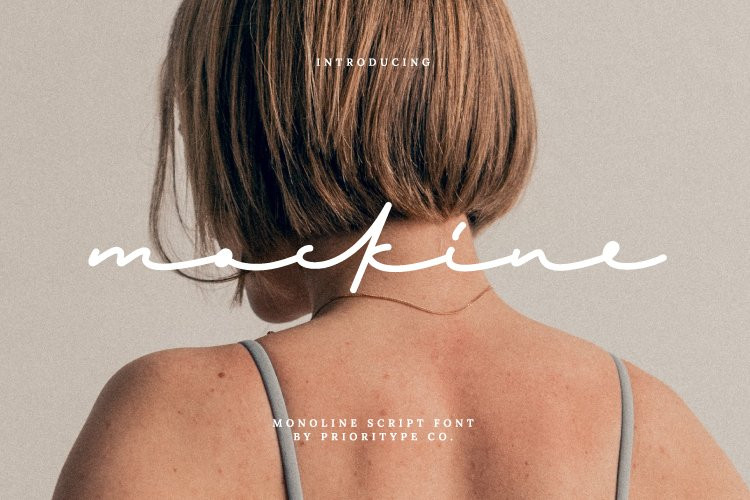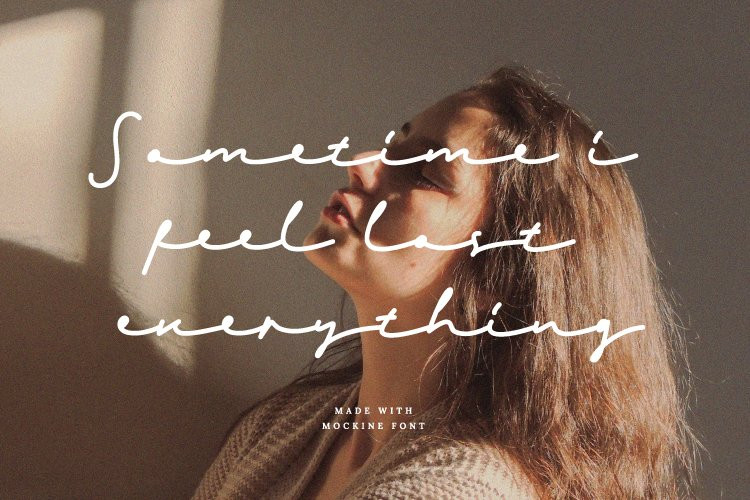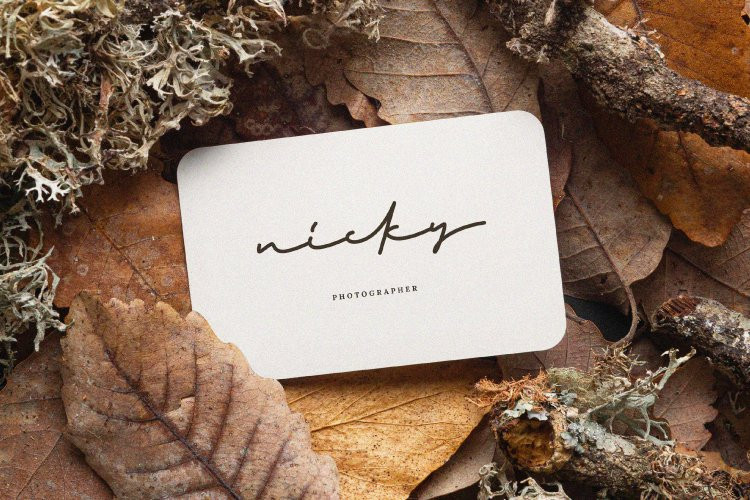
Mockine Font
Mockine FontIntroducing a new script typeface. Who is he “Mockine”. Monoline script font with natural hand strokes. It is perfect for your design projects such as logos, branding or social media posts.